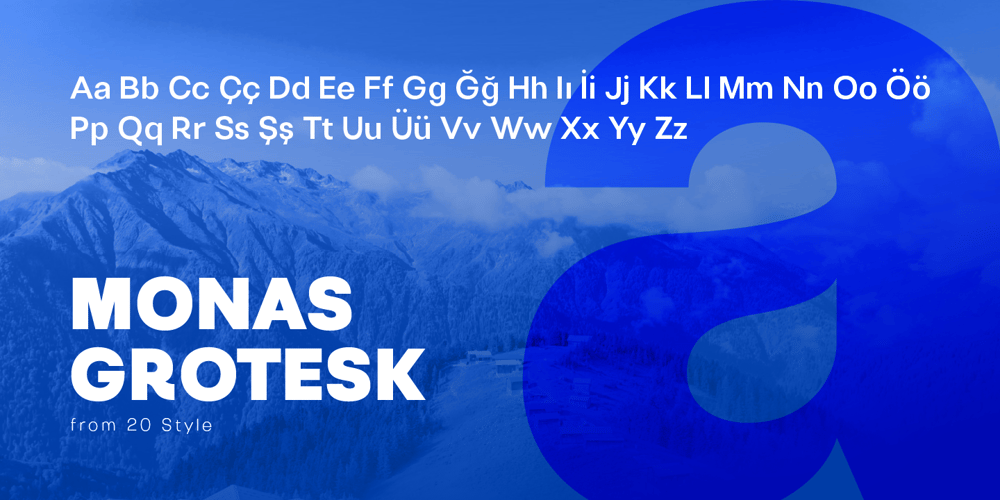
Monas Grotesk Font Family was designed by Serdar Öztürk and published by Serdar Ozturk. Monas Grotesk contains 20 styles and family package options. With Monas Grotesk, you can write bold banner writings and bring your slogans to life. Monas supports many language options and will not let you down.Also includes many alternative glyphs, ligatures and more.